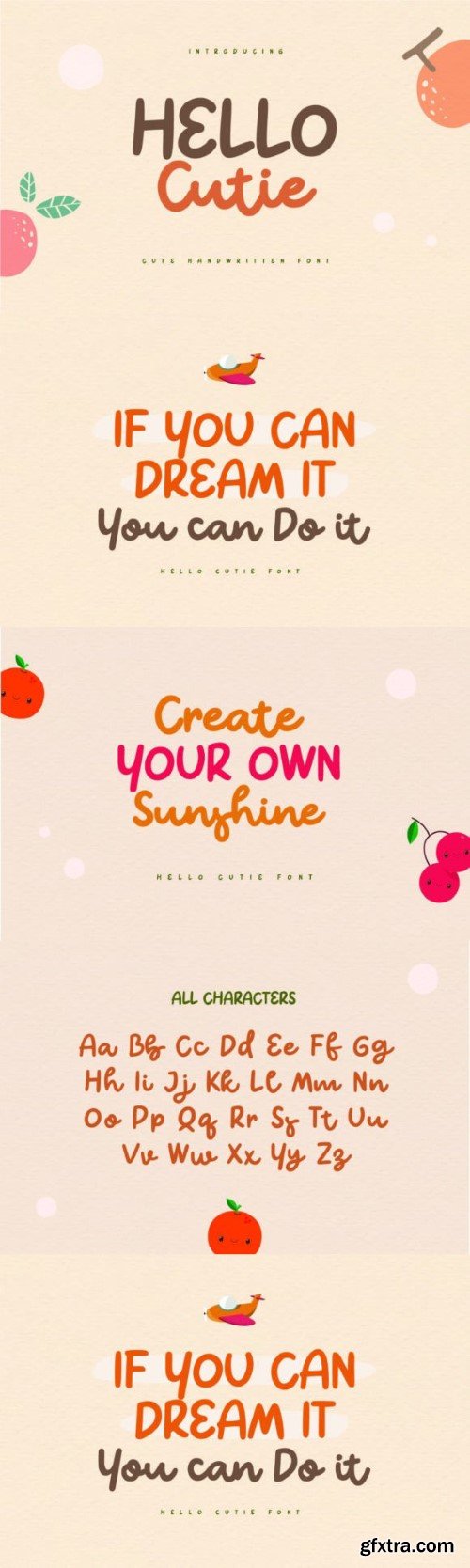
你好Cutie字体
Hello Cutie is an adorable and enchanting handwritten typeface that exudes a sense of warmth and amiability. Its playful curves and whimsical strokes bring a delightful flair to any design. Ideal for greeting cards, children's books, and invitations, Hello Cutie infuses your projects with a hint of sweetness and individuality.